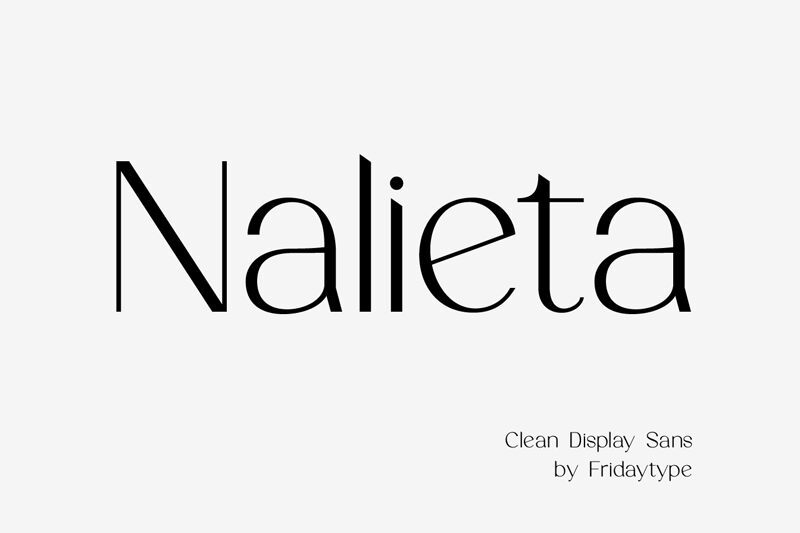
Nalieta
Introducing Nalieta, a clean sans serif font designed by Farida Kurniawan with a lightweight feel. Perfect for creating modern logos, minimalistic posters and sophisticated designs. With its versatile style, Nalieta is sure to make any project stand out.